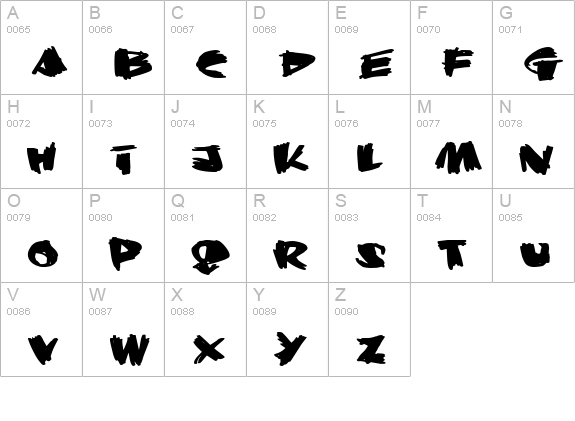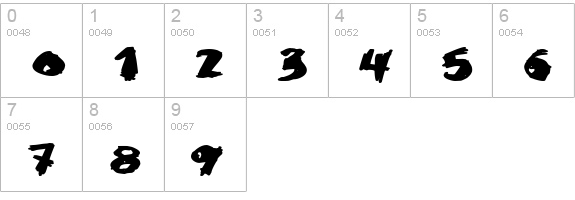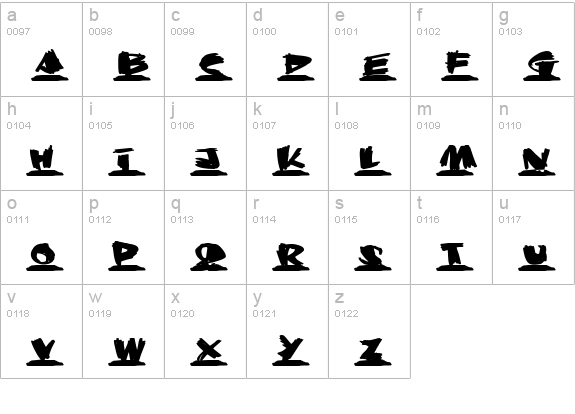
Krunch Bunch Font Details
Krunch Bunch font is a bold and eye-catching typeface that is perfect for making a statement with your text. Its unique design features sharp edges and a modern style that is sure to stand out in any project. Whether you're creating a poster, logo, or social media graphic, Krunch Bunch font will add a touch of modern flair. The best part? Krunch Bunch font is available for free download at FontsMarket.com. This means you can easily access this stylish font and use it in your designs without breaking the bank. Don't miss out on the opportunity to elevate your projects with the striking Krunch Bunch font - download it today and let your creativity shine!